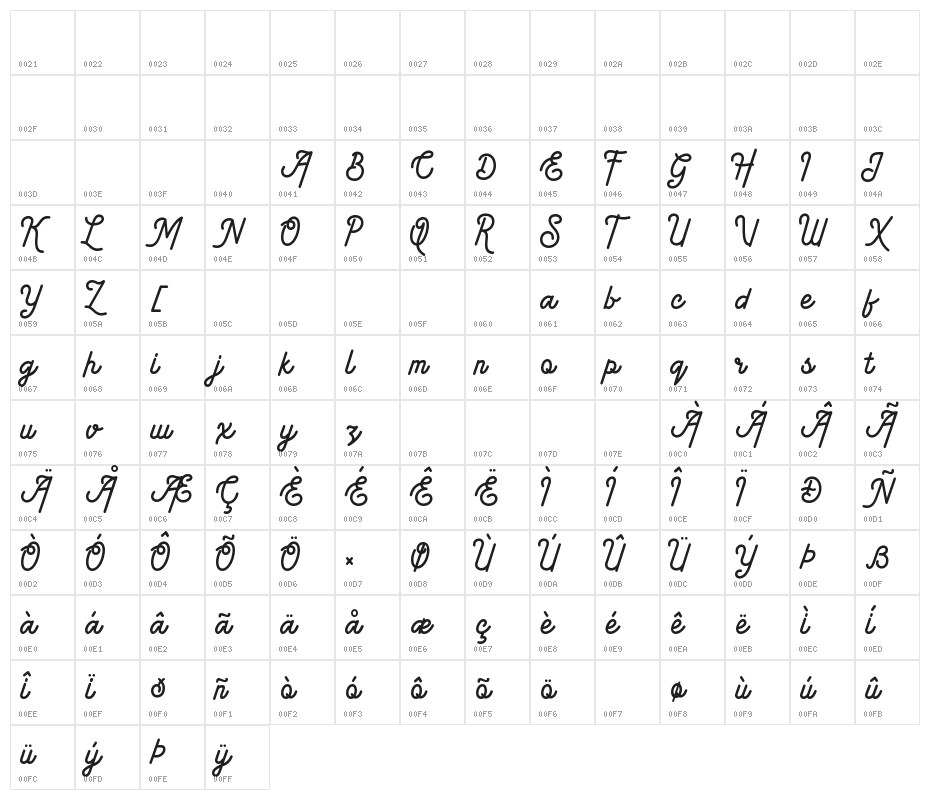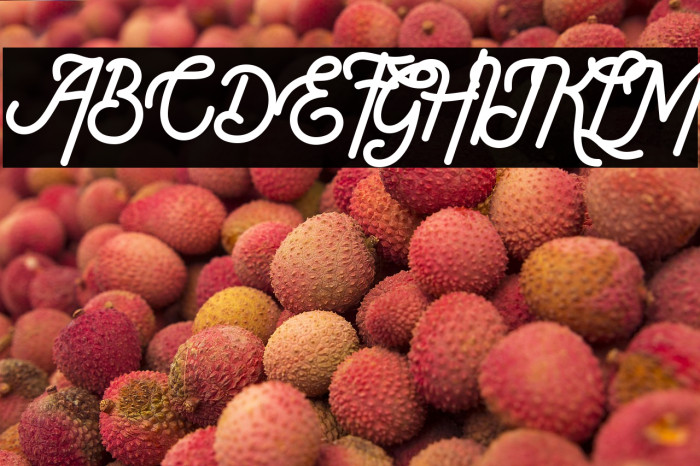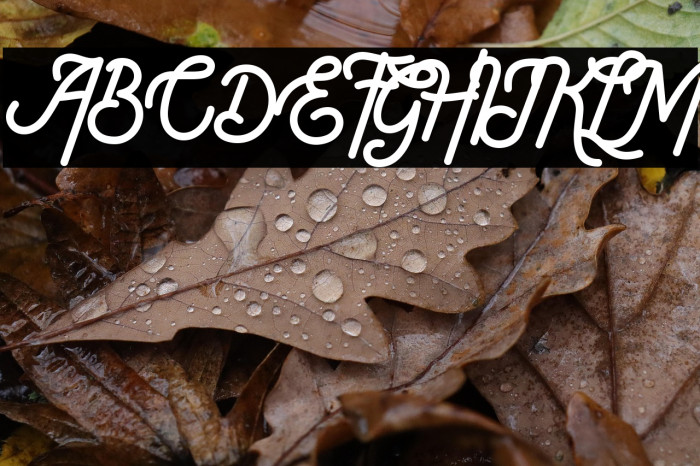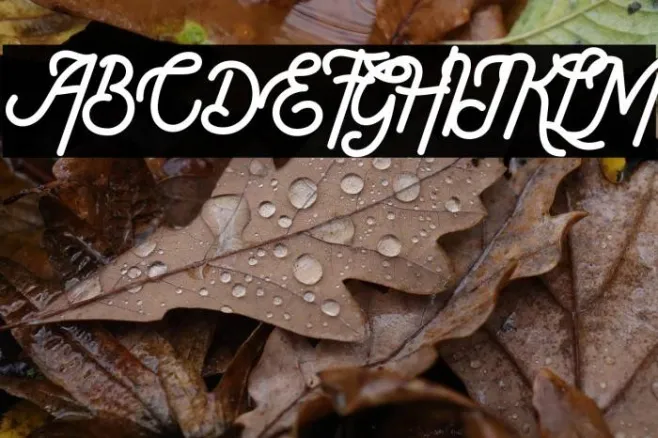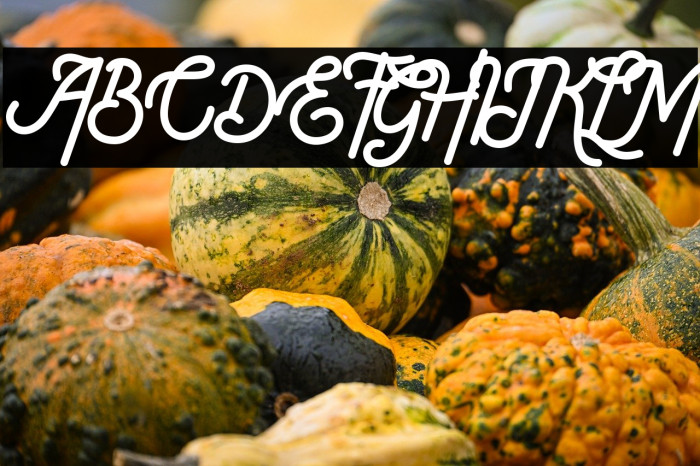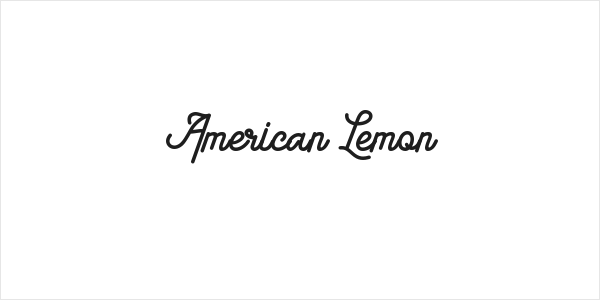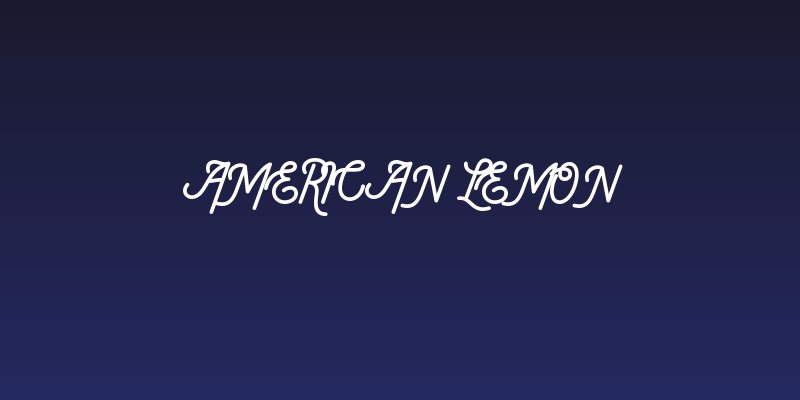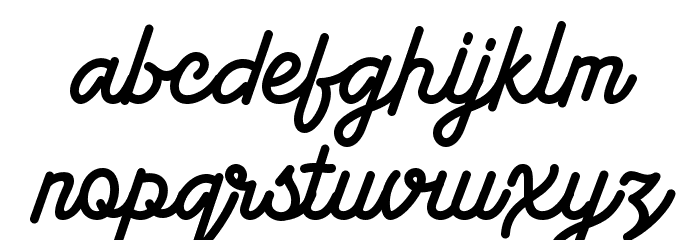
American Lemon Font
American Lemon Description
This font features a lively and flowing script style, characterized by its cursive, handwritten appearance. The letters are interconnected, creating a seamless and elegant look. The strokes are bold and consistent, with a slight slant that adds a dynamic feel. The uppercase letters are ornate, with flourishes that enhance their decorative quality, while the lowercase letters maintain a smooth and cohesive flow. The numbers and special characters are designed to match the overall aesthetic, ensuring uniformity across all elements.
| Proposed Projects | Ideal for wedding invitations, greeting cards, logos, and branding materials that require a personal and elegant touch. |